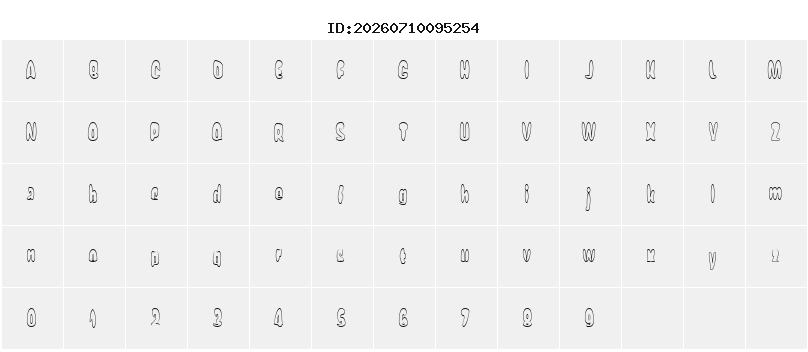
Eggit Outline AOE Preview
• Font Name: Eggit Outline AOE
• Full Font Name: Eggit Outline AOE
About Eggit Outline AOE.ttf
Eggit Outline AOE.ttf is a modern, elegant sans-serif font designed for ultimate readability and visual harmony. Perfect for branding, headlines, web design, and print materials.